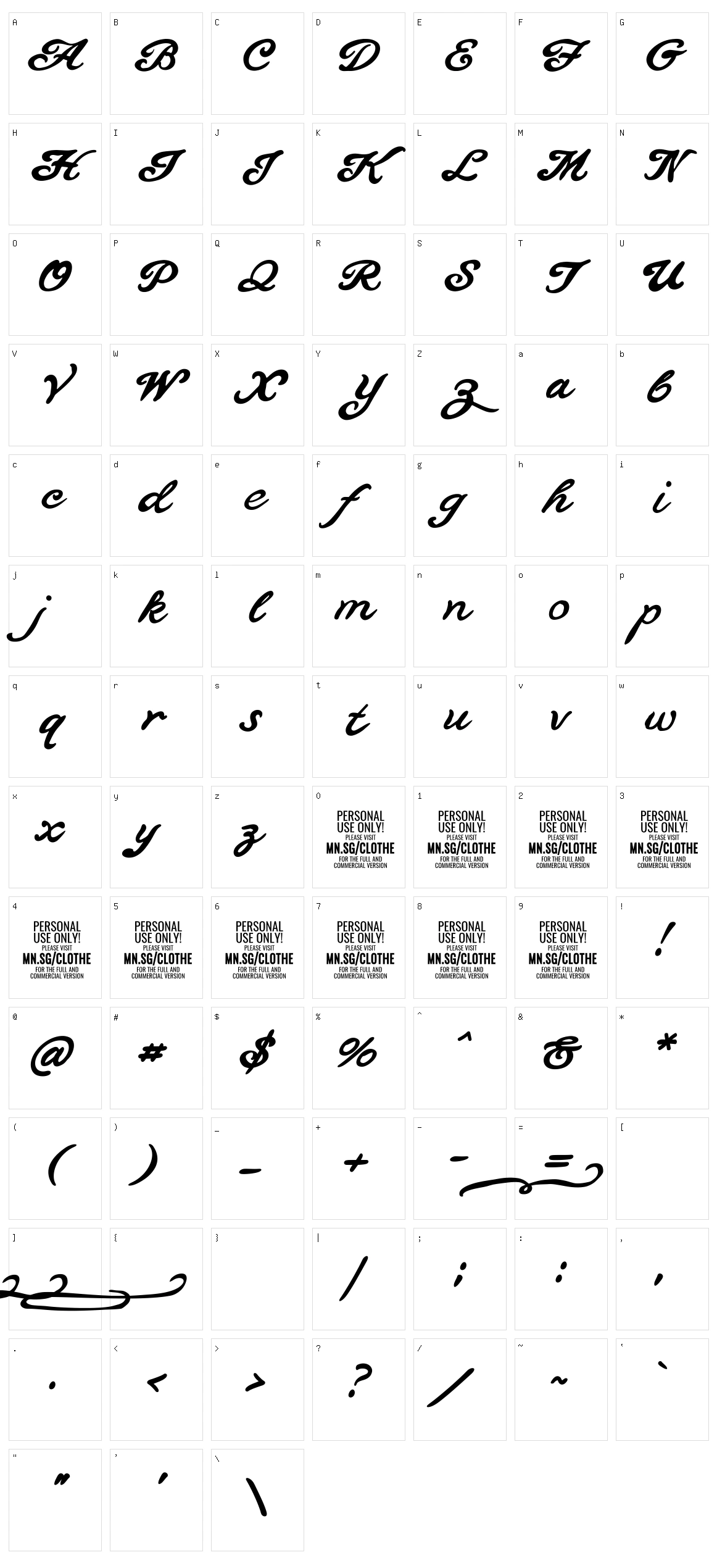
Clothe is a vintage handwriting typeface.
The genuine calligraphic style gives any project a handmade feeling.
Drawn and put together by Måns Grebäck, this font supports hundreds of languages.
Use [ ] { } for swashes.
Example: Clothe[